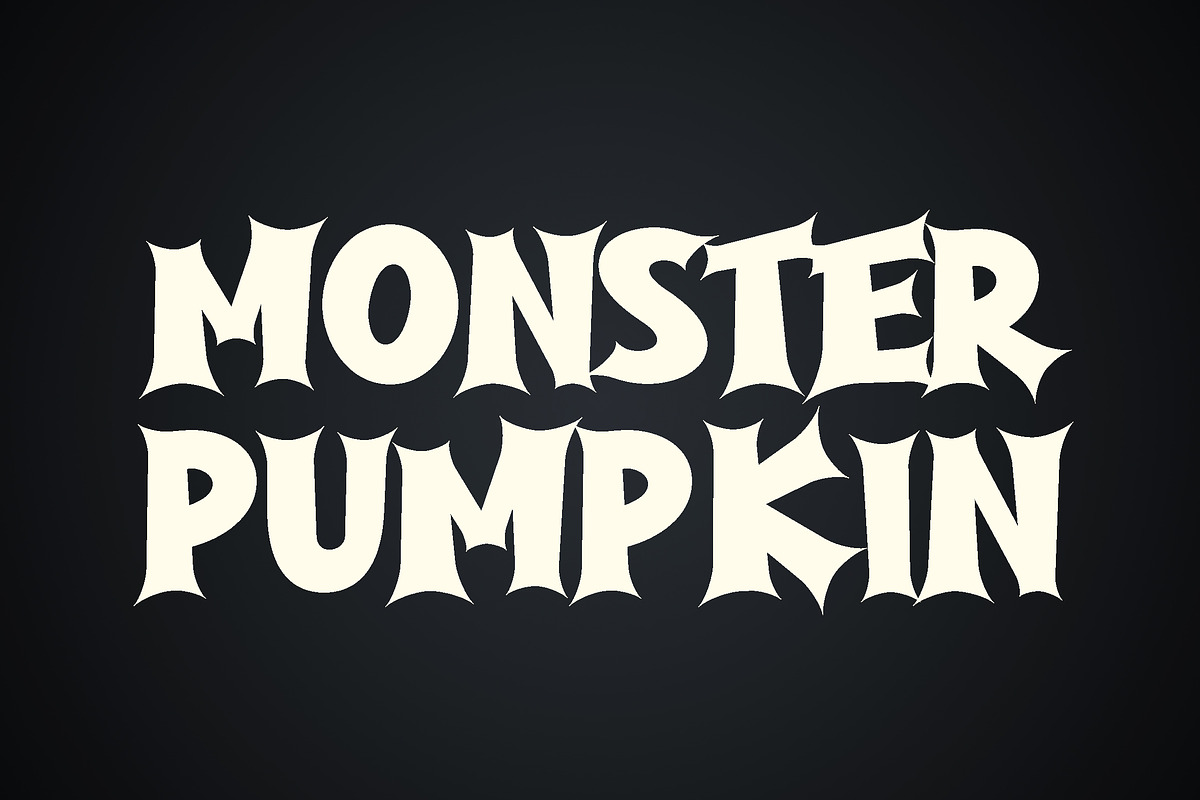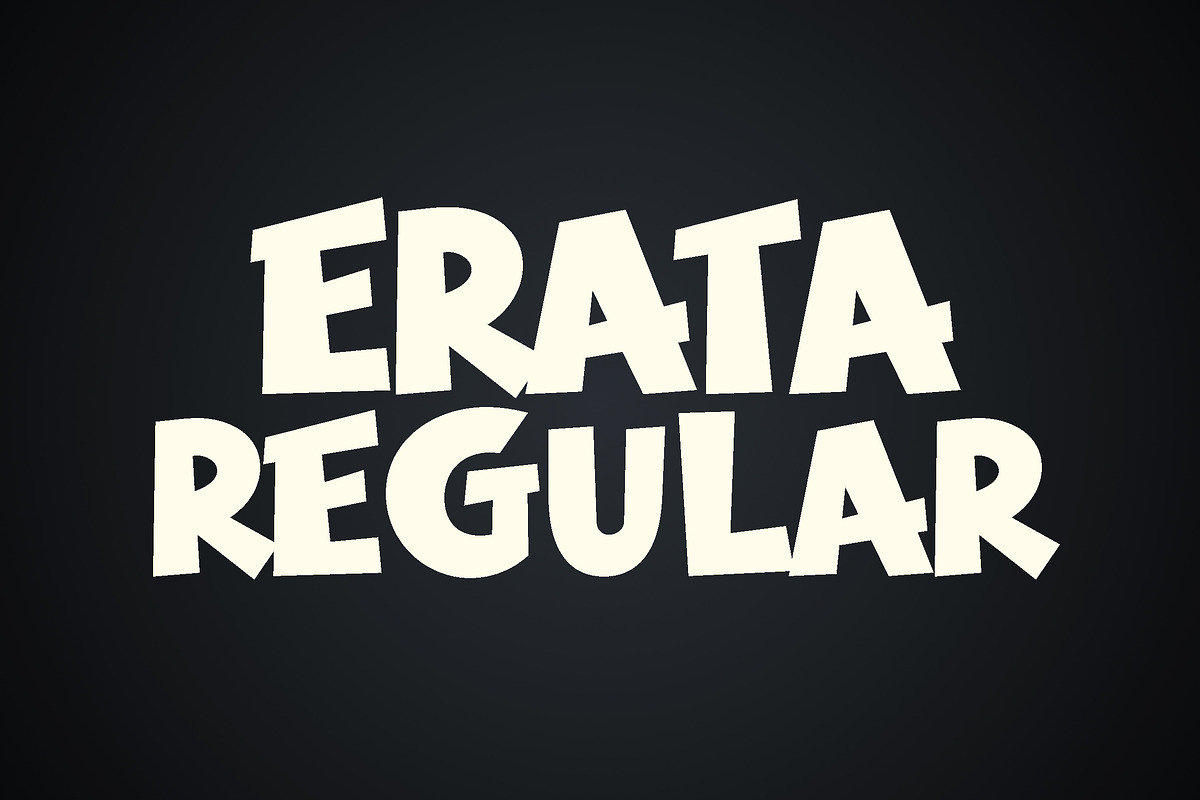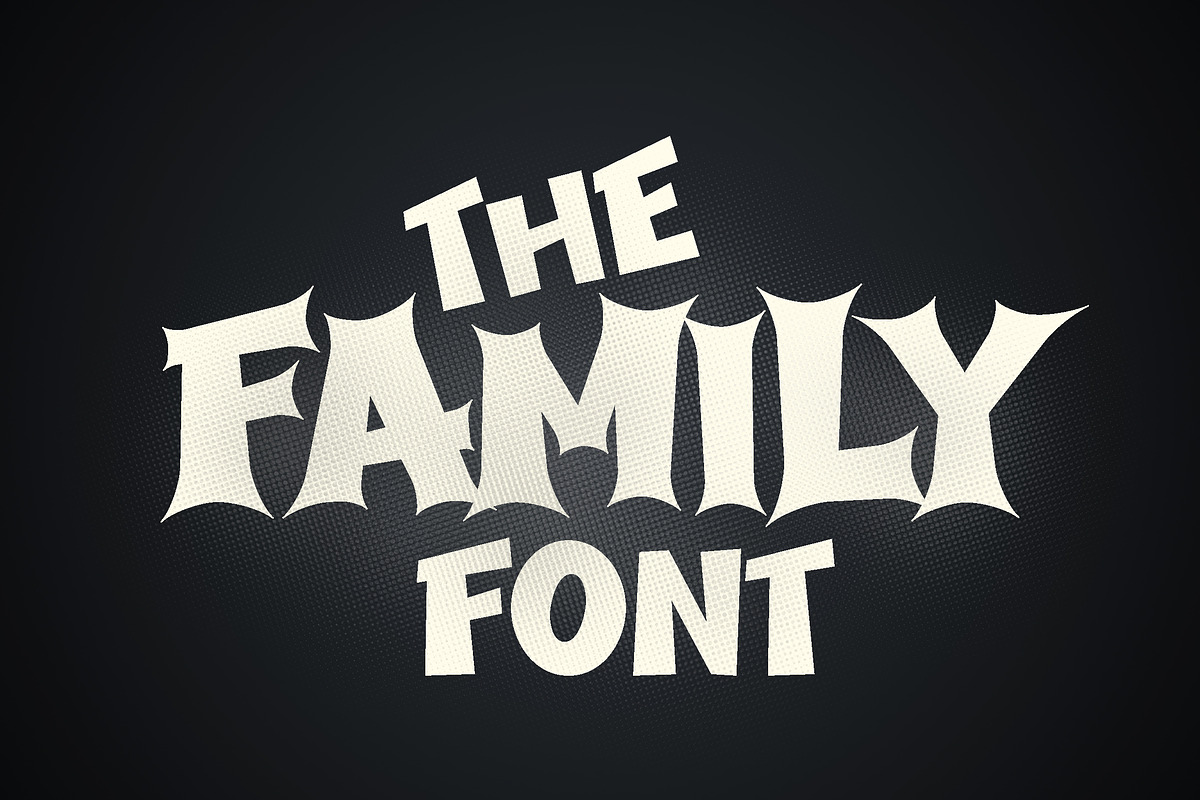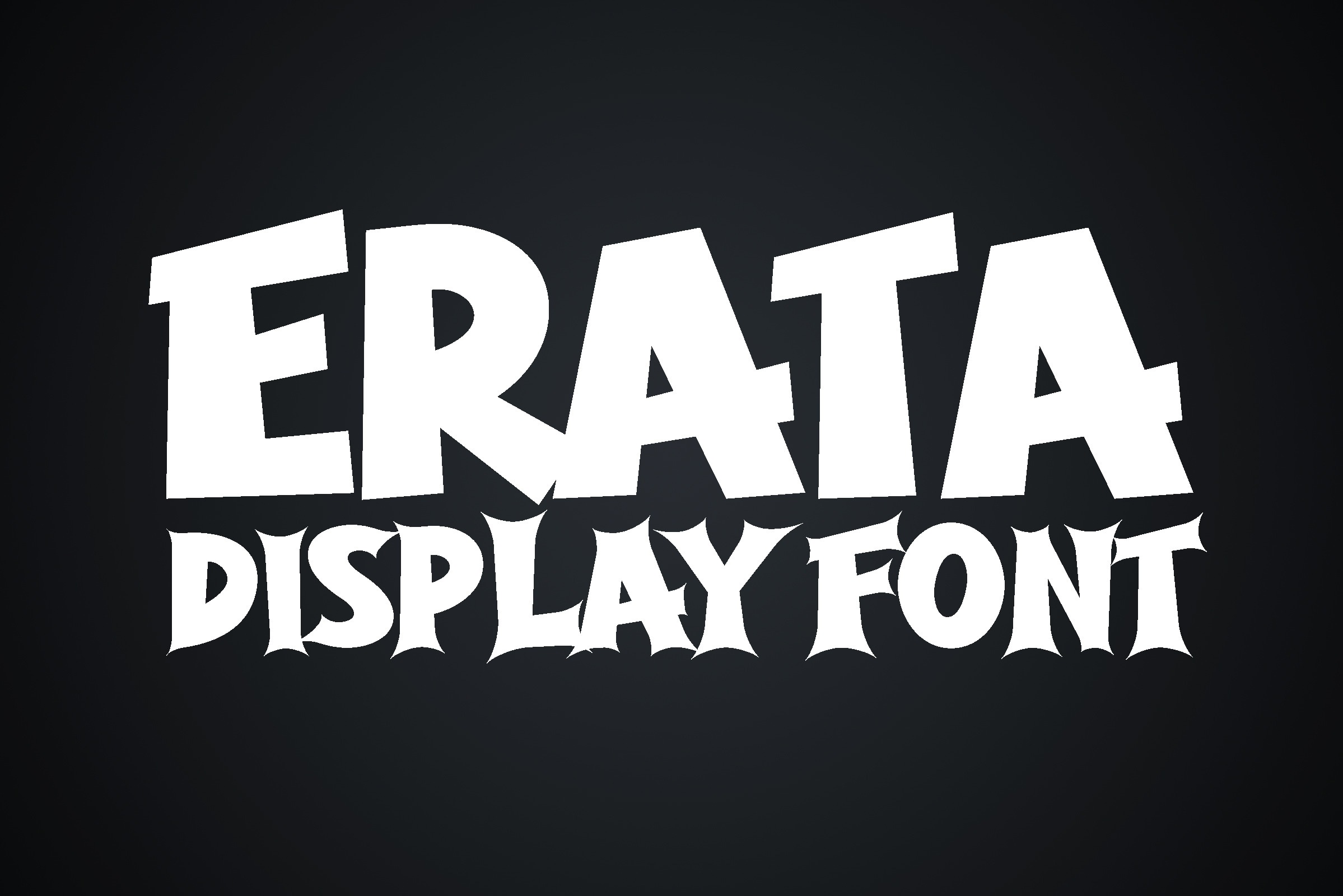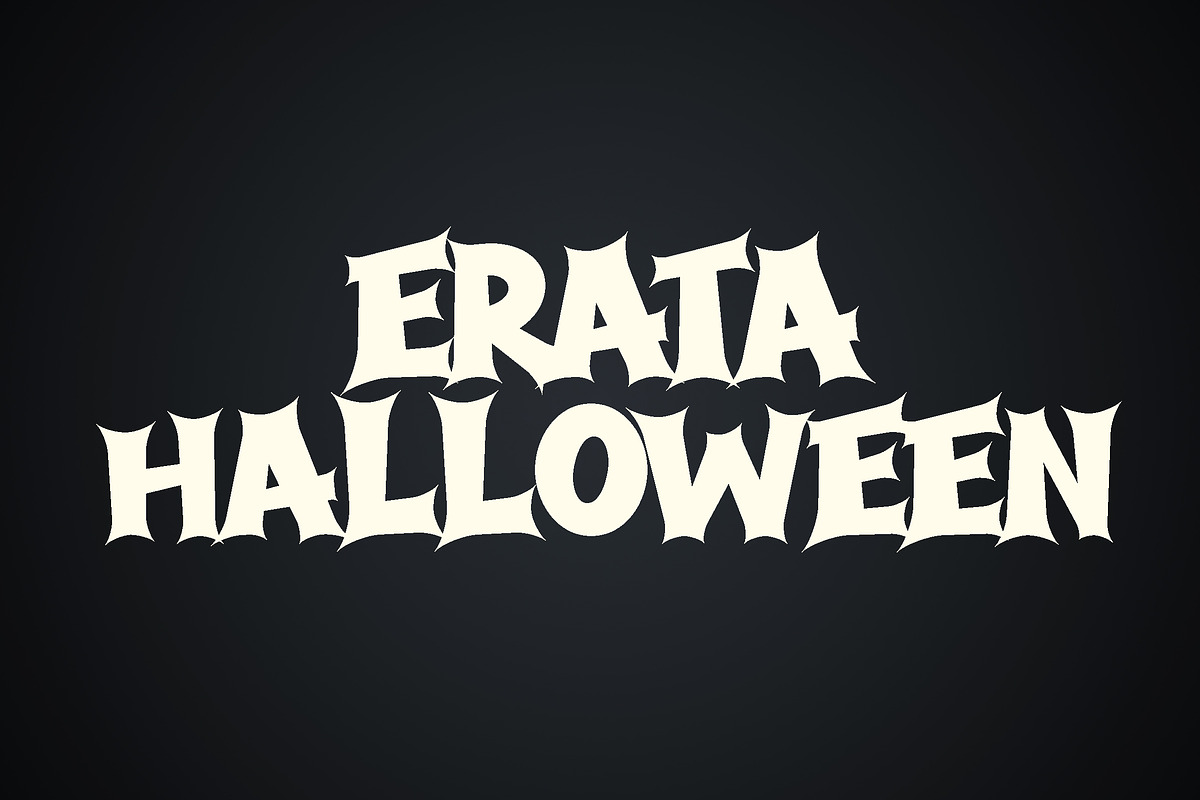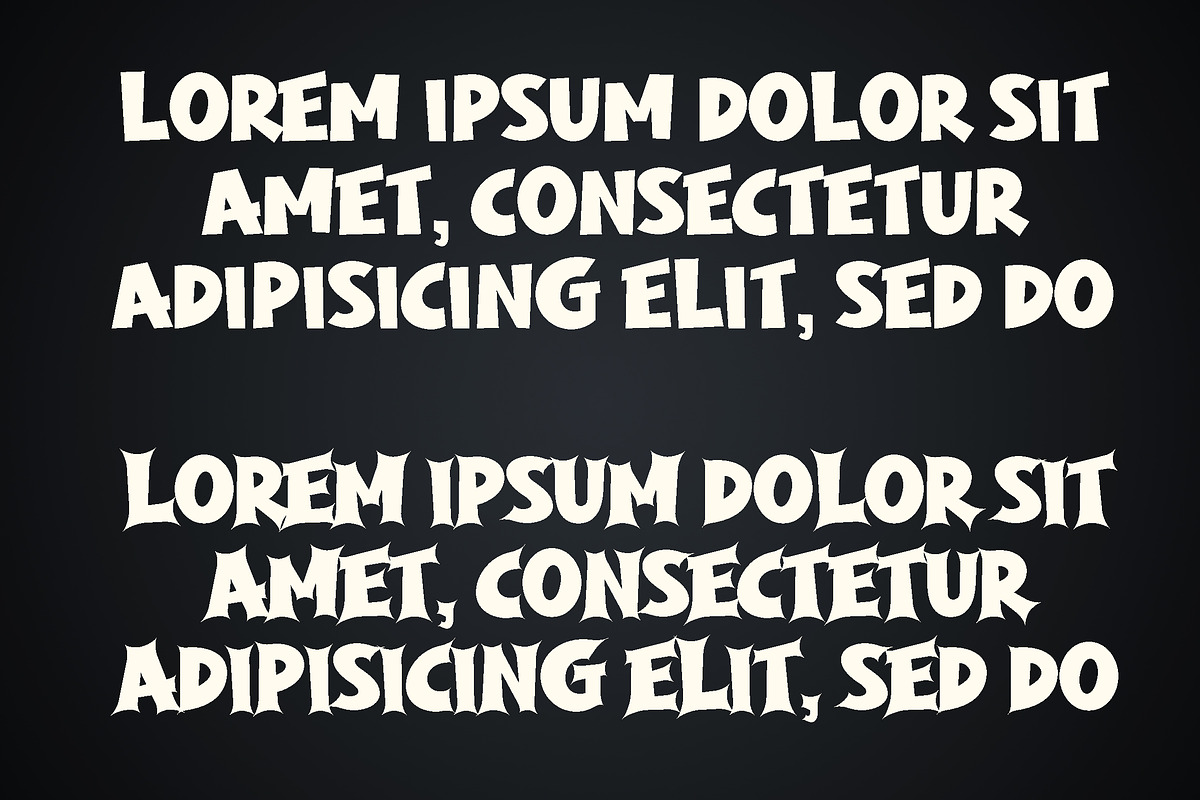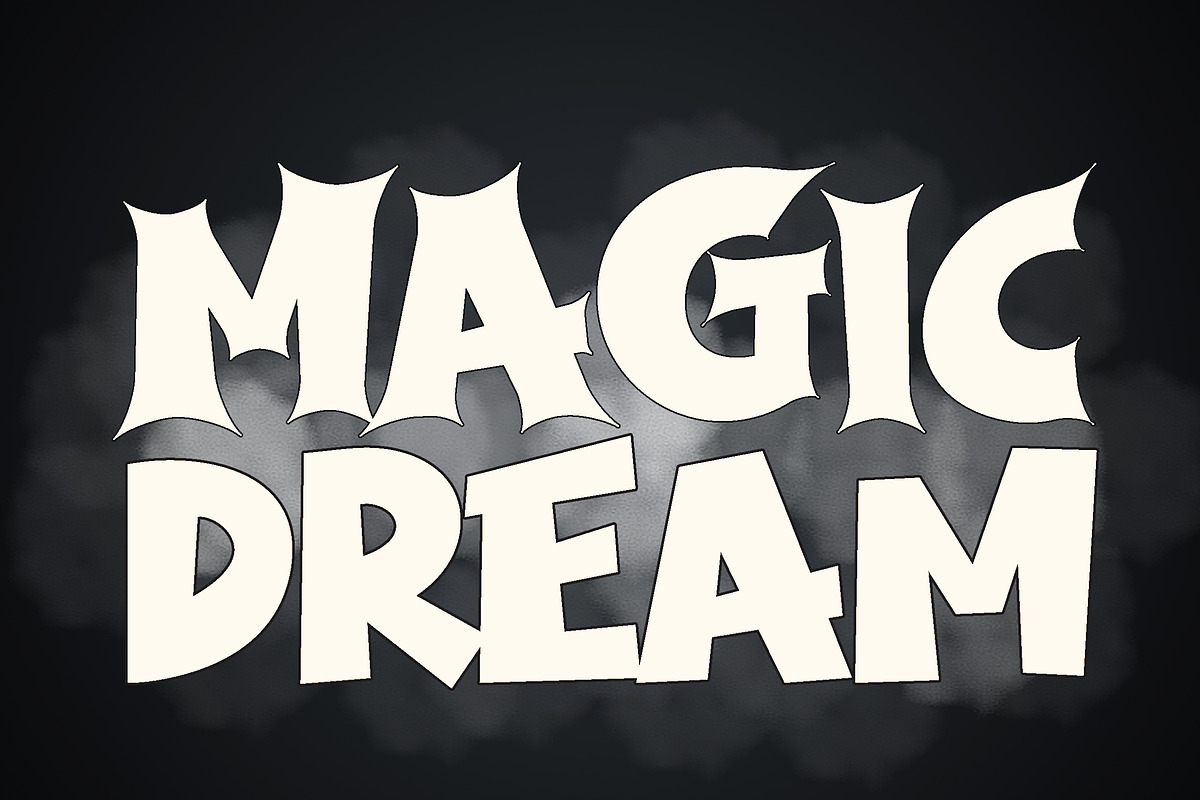
Erata - Bold display type font
Erata is a bold display type font, Font duo, friendly, pretty, elegant, modern, lettering, cool font, simple font, trendy font, so you can use it for headlines, cards, invites, logotypes, magazines and, of course, movie posters and t shirts. This font is PUA encoded which means you can access all of the glyphs and alternates with ease! (please type the preview to see if I have what you need!)